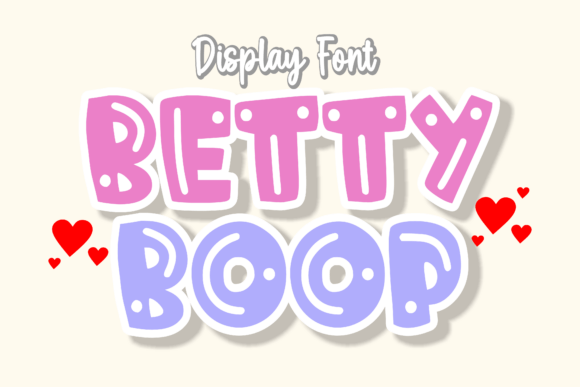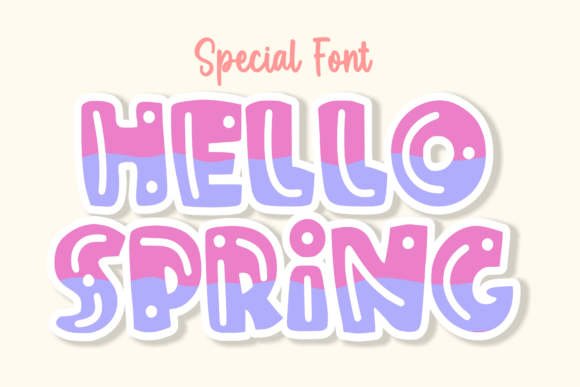
Betty Boop Font
Betty boopt is a fun and playful font inspired by bold retro typography. This font is perfect for designs that need a cheerful and fun accent. Betty Boop is suitable for posters, packaging, merchandise, logos, and more. Pour your imagination with Betty Boop.